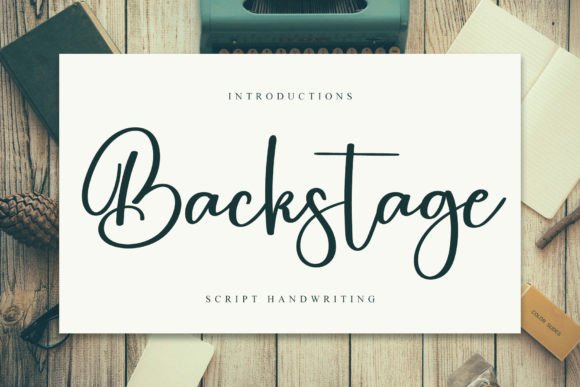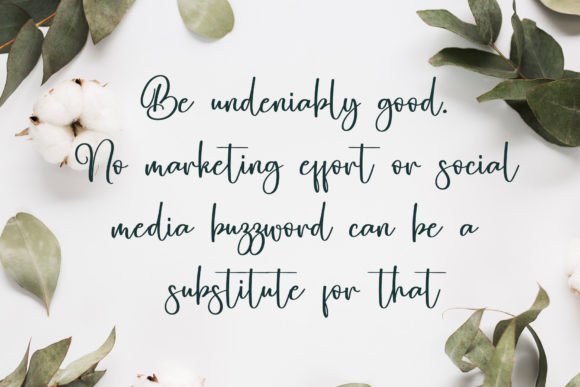
Add a luxurious spark to your creative work with the Backstage font, a sweet and beautiful handwritten script designed to elevate your designs. Its characters flow gracefully along the baseline, creating a charming and elegant feel.
The Backstage font is perfect for various design projects. Whether you are working on branding, logos, invitations, social media graphics, or packaging, this font adds a refined and personal touch that captivates attention.
Its delicate style makes it suitable for wedding invitations, greeting cards, album covers, and more. With the Backstage font, every letter dances smoothly, adding sophistication and flair to your designs.
Despite its elegant appearance, the Backstage font maintains excellent readability. It works well across various sizes, from prominent headlines to subtle details, providing versatility in your projects.
Using the Backstagefont will help you create stylish and memorable designs. If you want a handwritten script that combines sweetness with elegance, this font is an excellent choice.
In summary, the Backstagefont is a sweet, beautiful, and elegant handwritten script. It adds a luxurious sparkle to logos, branding, invitations, and more. Download it today and bring your designs to life with Backstage.